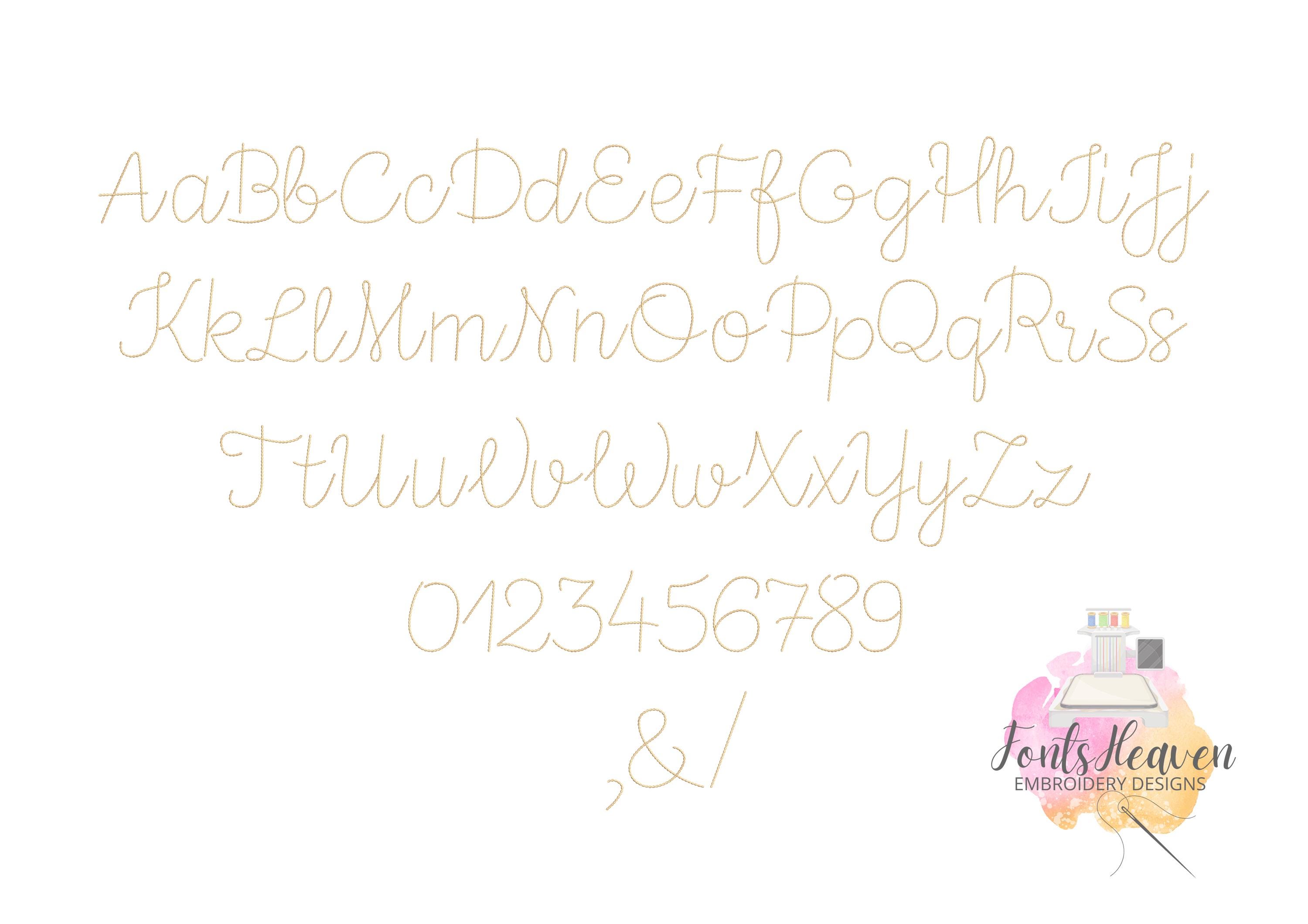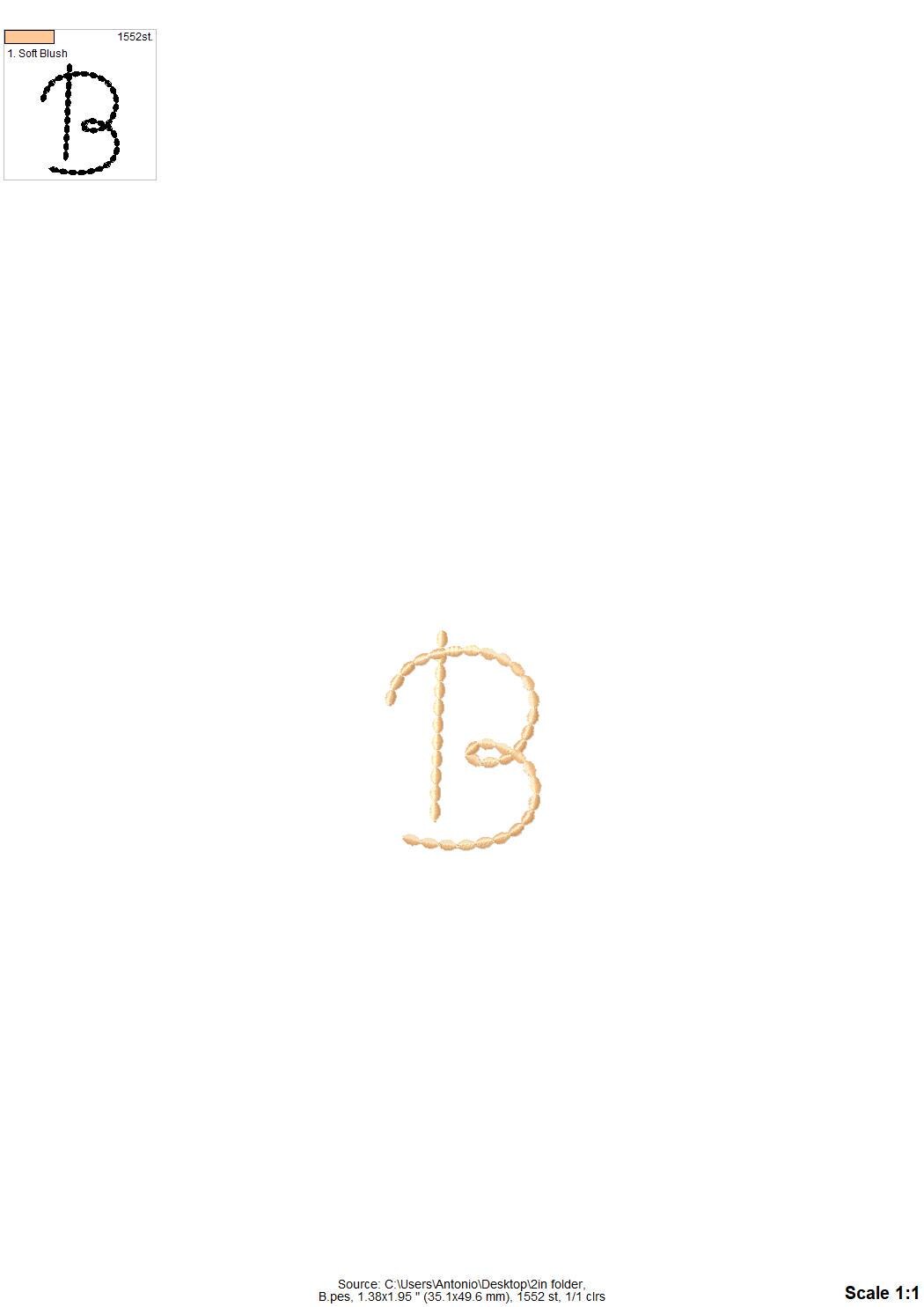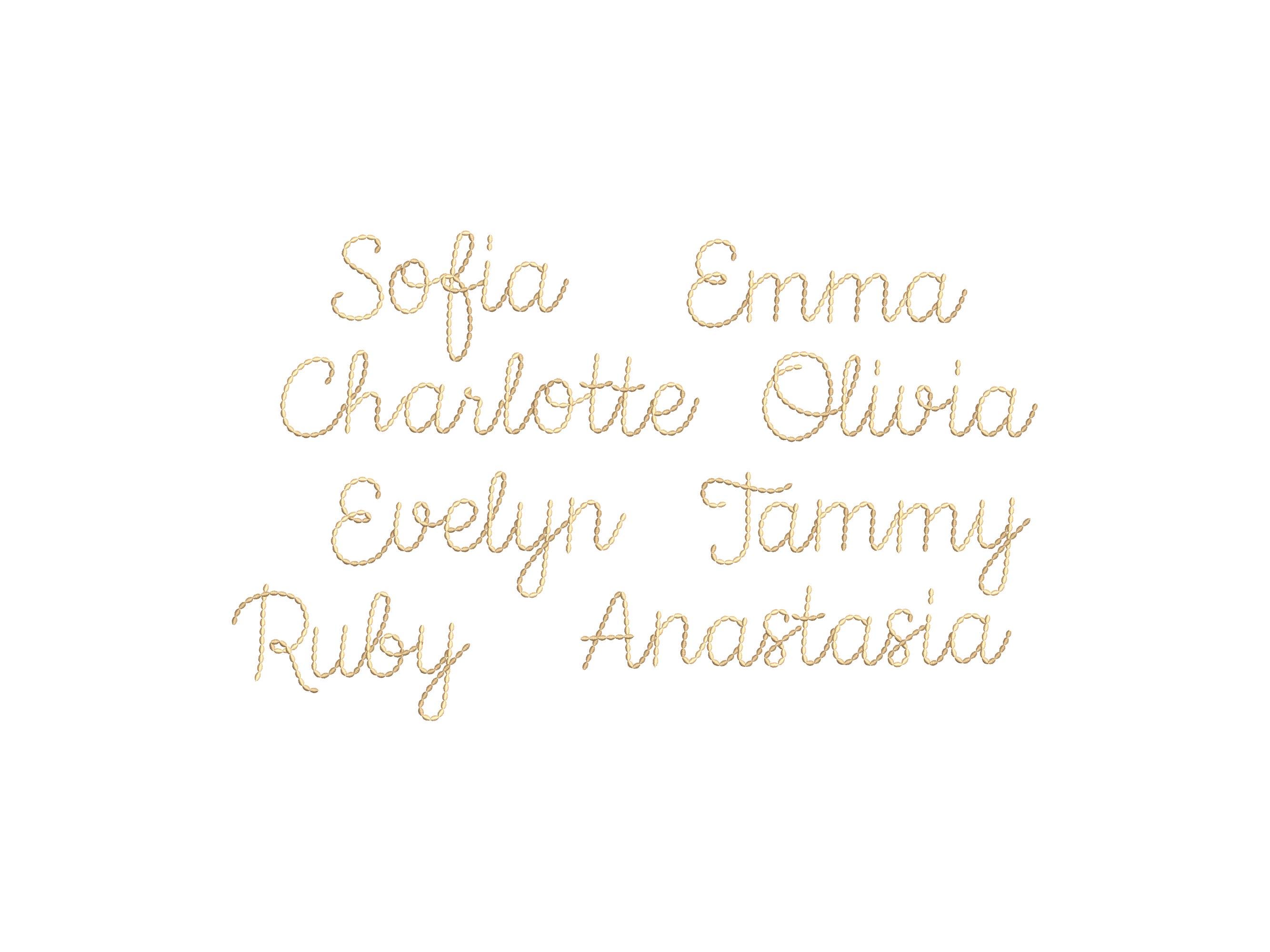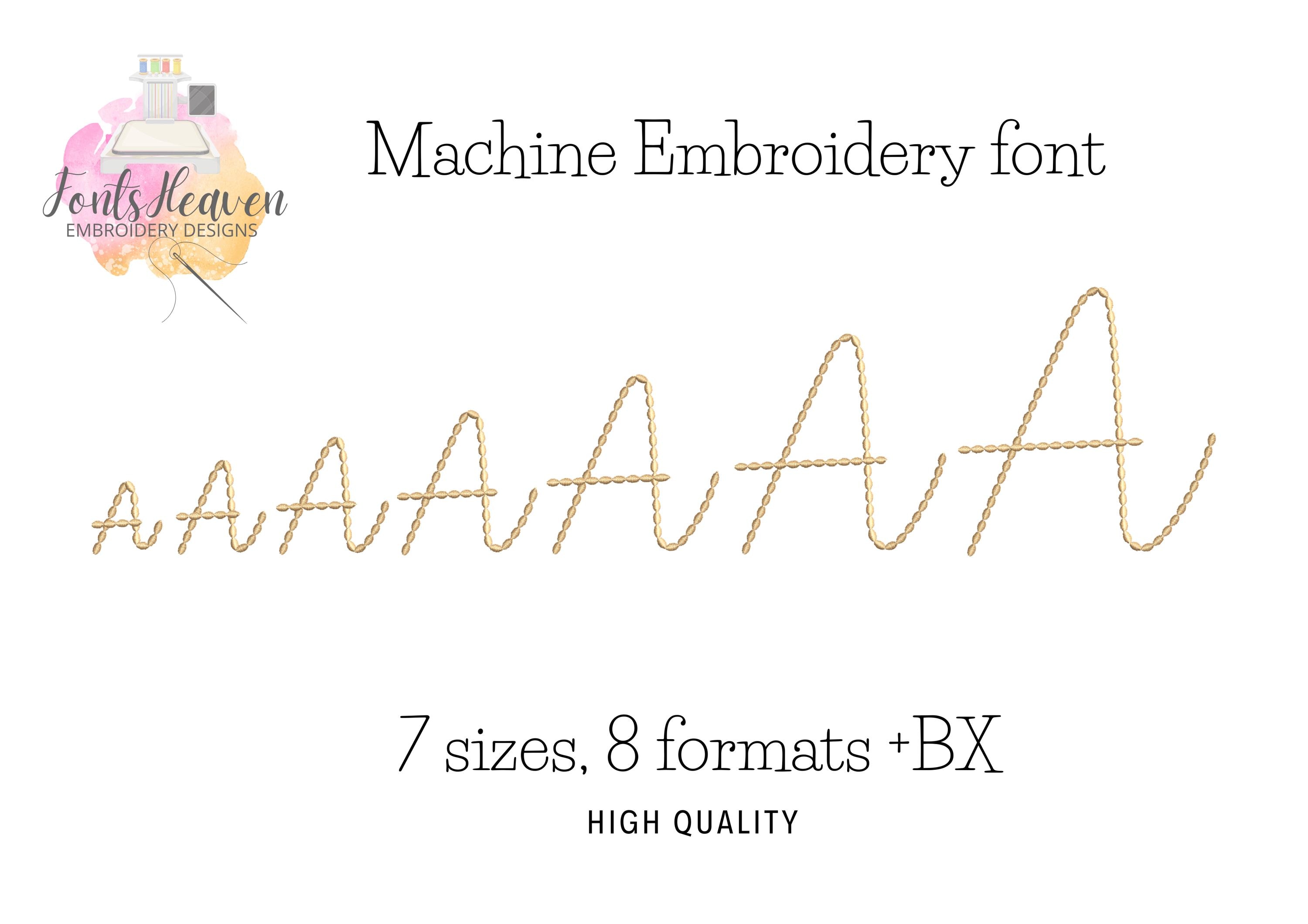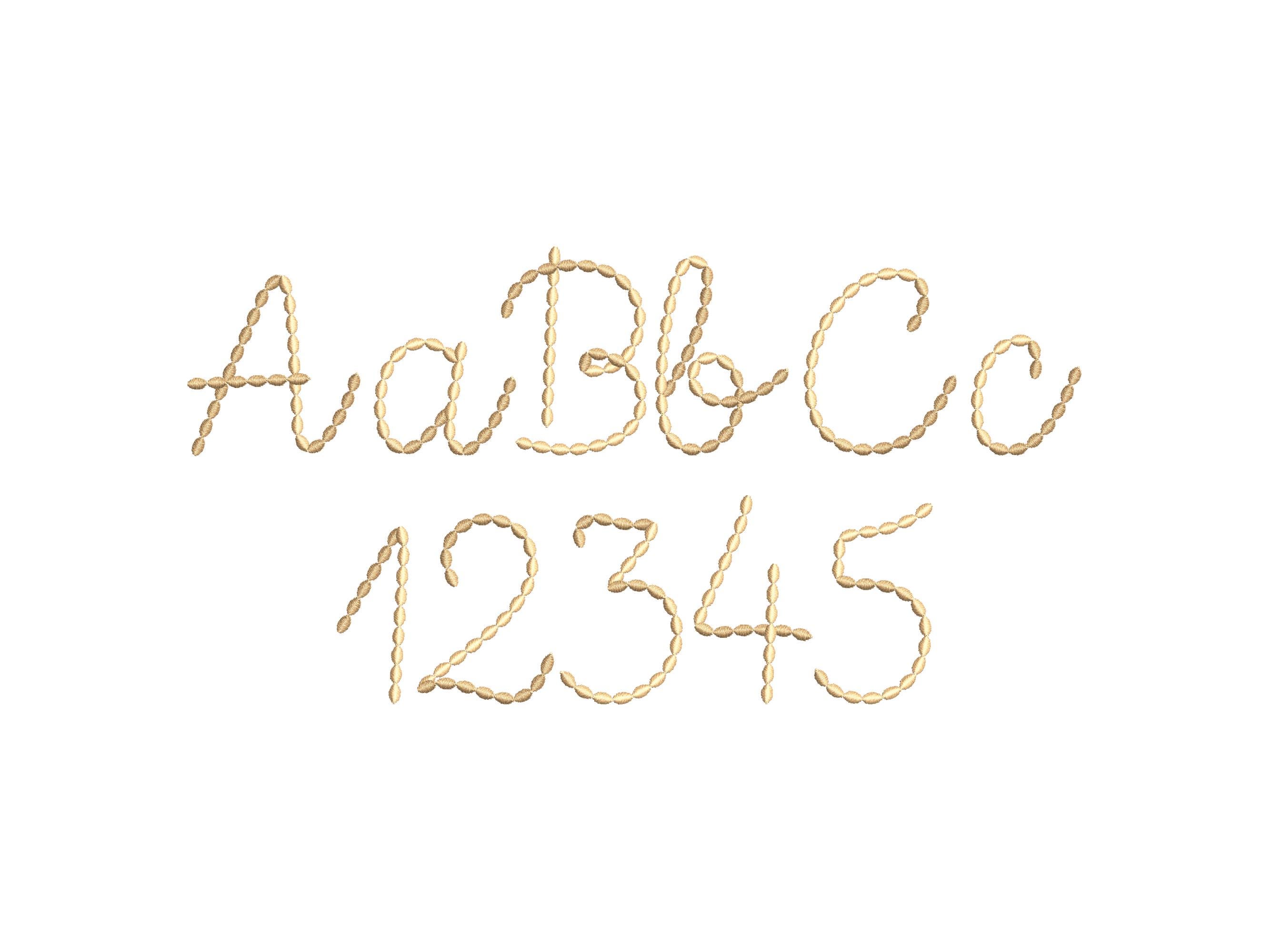
Needlework script FONT handwritten Font hand stitch effect alphabet machine embroidery designs monogram letters many sizes 1 up to 3.8 inch
Entire alphabet A-Z uppercase and lowercase letters, numbers 0-9, and punctuiations.